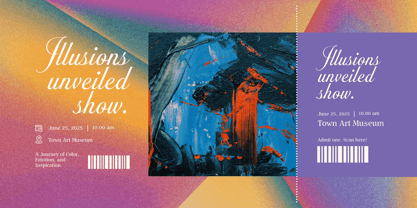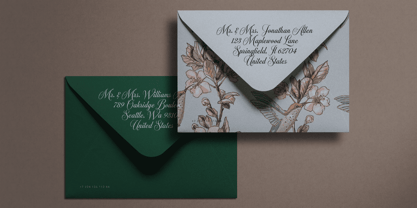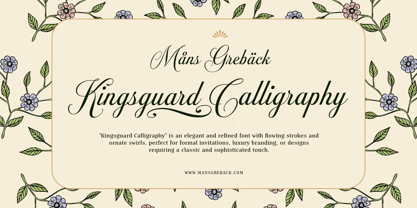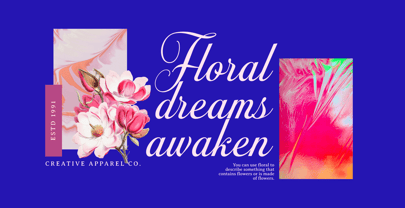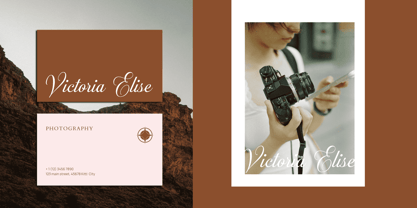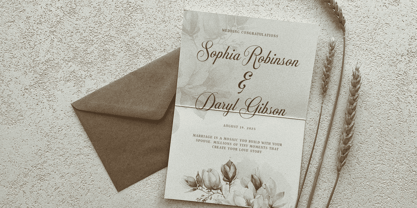
Kingsguard Calligraphy
by Mans Greback
Kingsguard Calligraphy is a sophisticated script font. It has graceful, flowing lines and a very classic calligraphic look. Its ornaments maintains a touch of grandeur, with loops and curves that gives it an exclusive feel.
Use underscore _ anywhere in a word to create a swash.
Example: Rose_field
Use multiple underlines to created longer decorations.
Example: Magic_____land
It's suitable for elegant stationery, luxury branding, high-end packaging and similar designs that require a noble feel.
The font is built with advanced OpenType functionality and guaranteed top-notch quality, containing stylistic and contextual alternates, ligatures and more automatic and manual features; all to give you full control and customizability.
It has extensive lingual support, covering all Latin-based languages, from North Europa to South Africa, from America to South-East Asia. It contains all characters and symbols you'll ever need, including all punctuation and numbers.